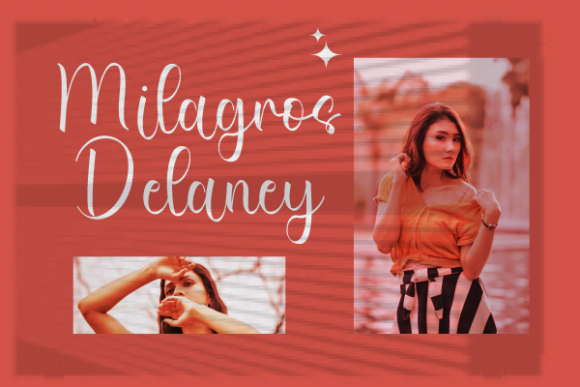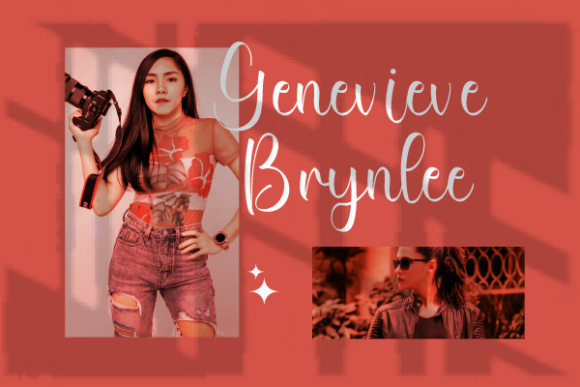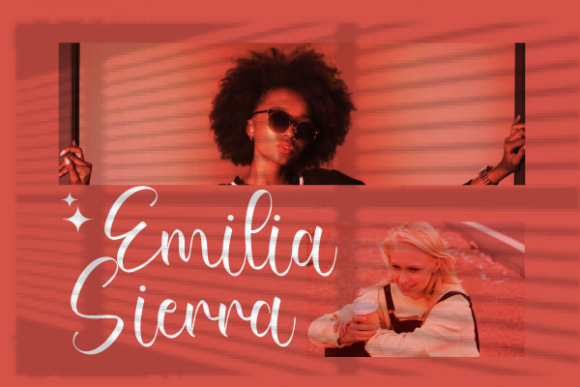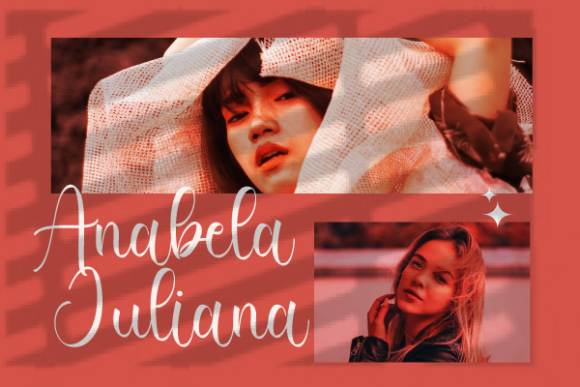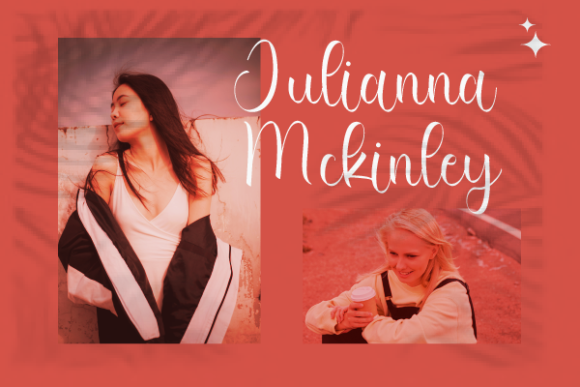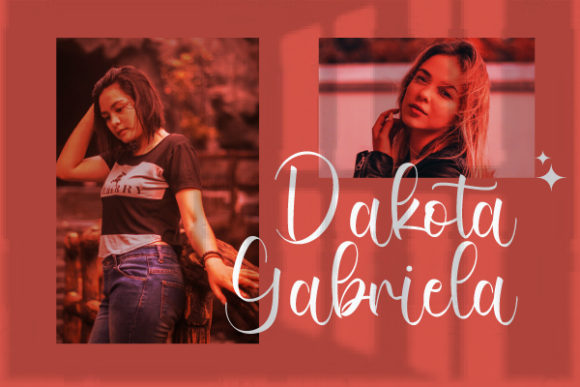
Introduction to Samara Daphne Font
Samara Daphne is a stylish handwritten font.
Its stylish letters are perfect for wall displays, wedding invitations, social media post logos, advertisements, product packaging, product designs, labels, photography, watermarks, invitations, stationery, and any project that requires a handwritten taste .
Key Features of Samara Daphne Font